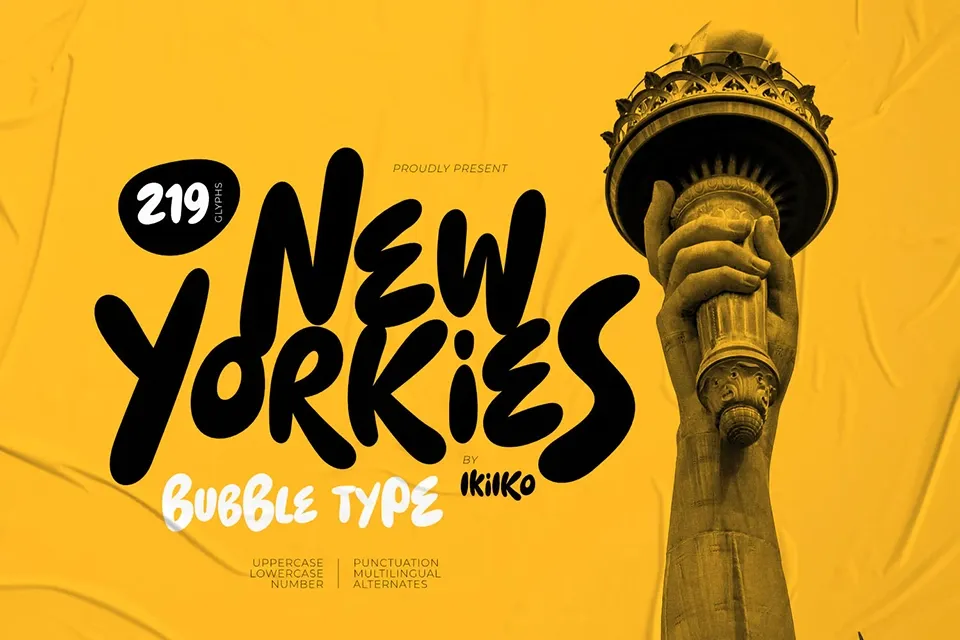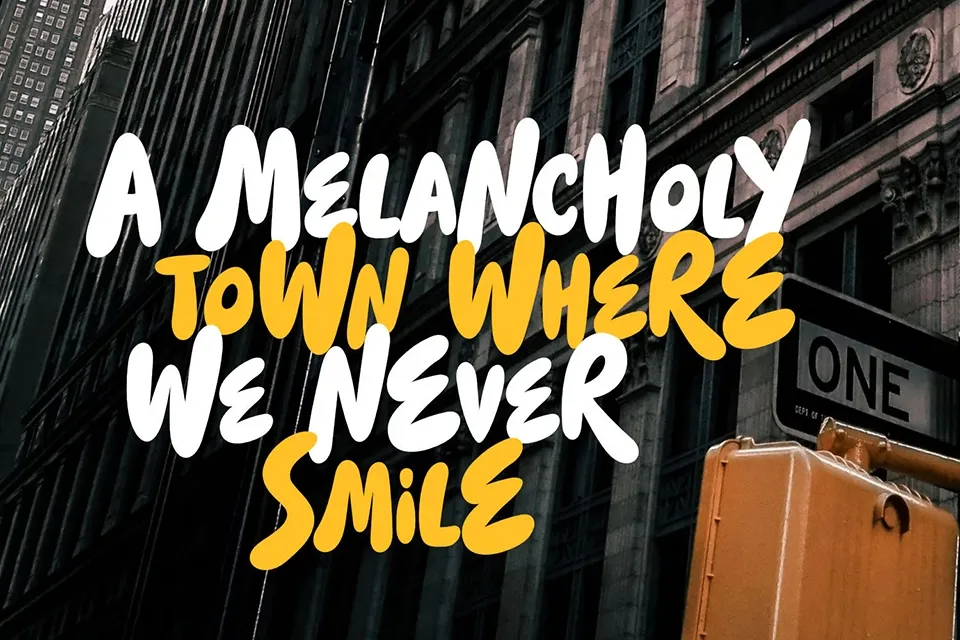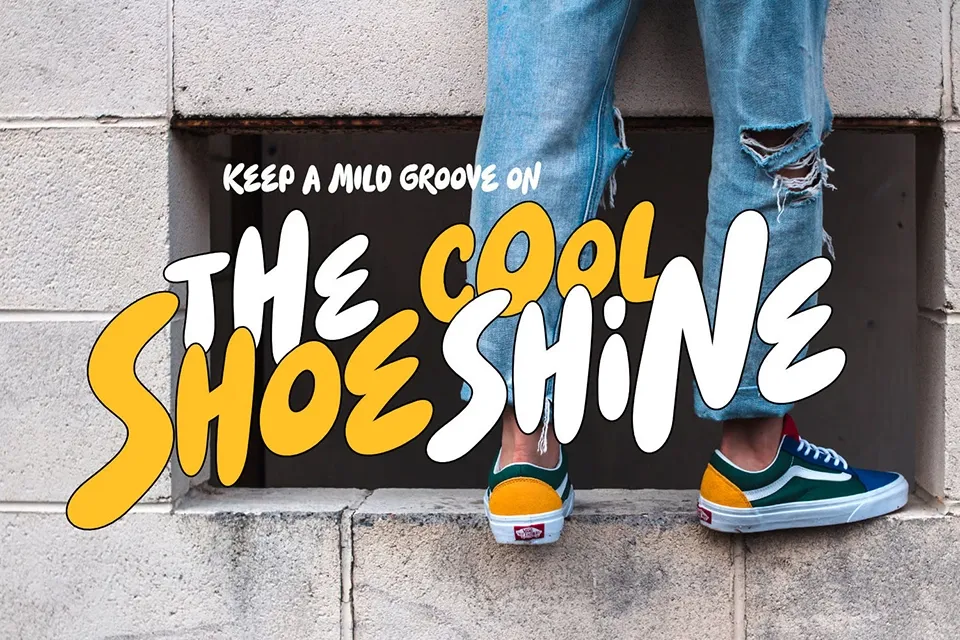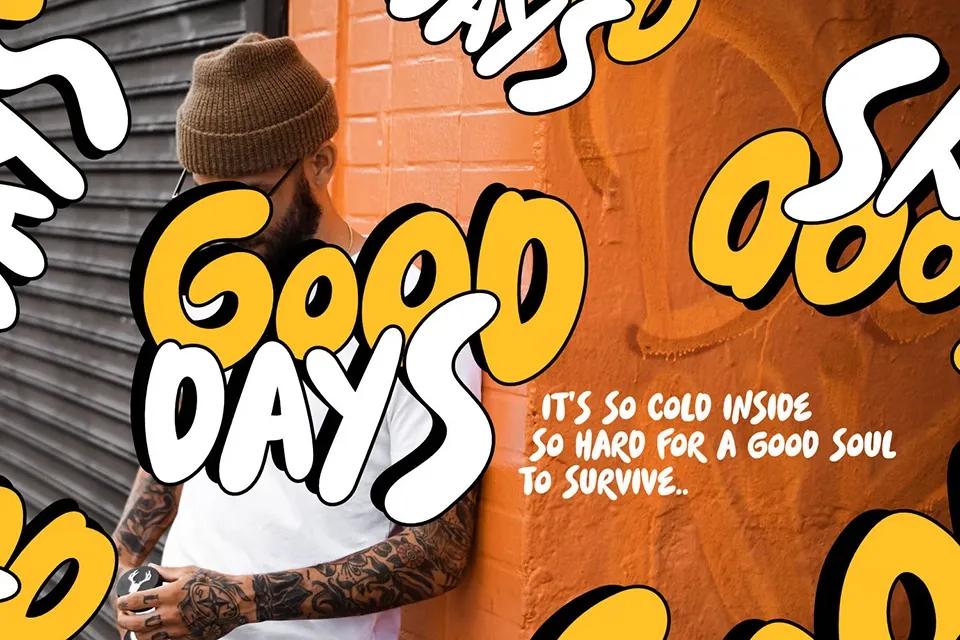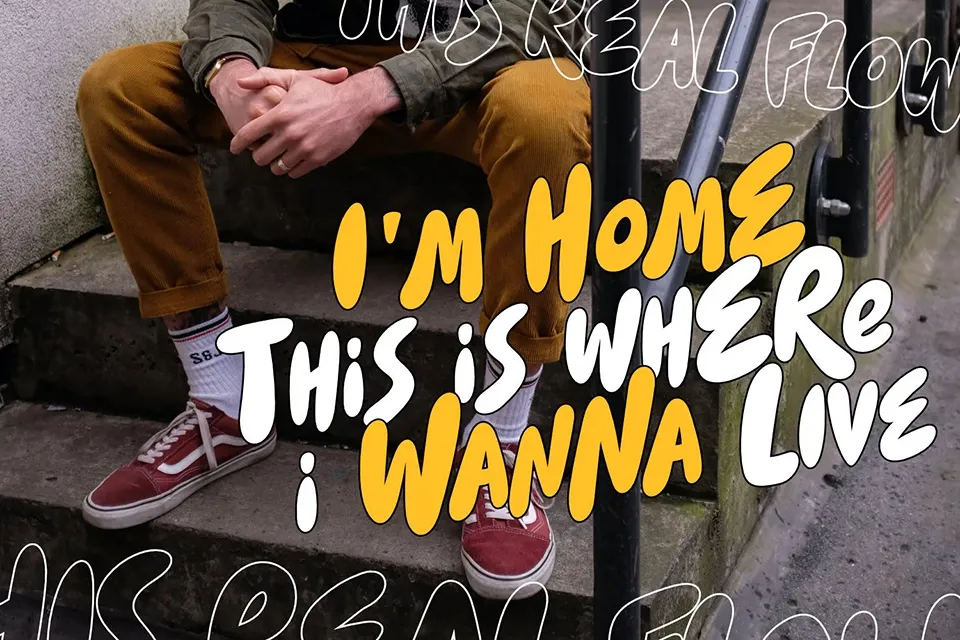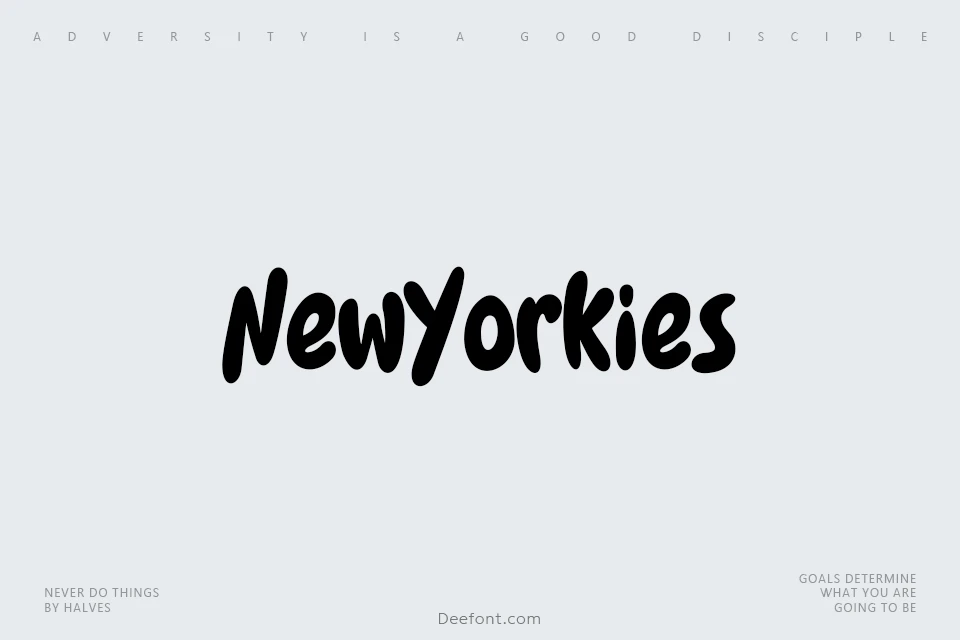
New Yorkies Font
New Yorkies Font, created by the Ikiiko type foundry, is a bold and playful bubble-style font. With its rounded, dynamic letterforms, it captures a fun, urban energy. The font boasts an impressive 2199 glyphs, including uppercase and lowercase letters, numbers, punctuation, multilingual support, and alternates, offering significant creative flexibility. Its distinctive appearance makes it ideal for eye-catching headlines, posters, branding, social media graphics, and any design project seeking a lively, contemporary, and impactful typographic statement. New Yorkies brings a fresh and stylish vibe to visual communication.